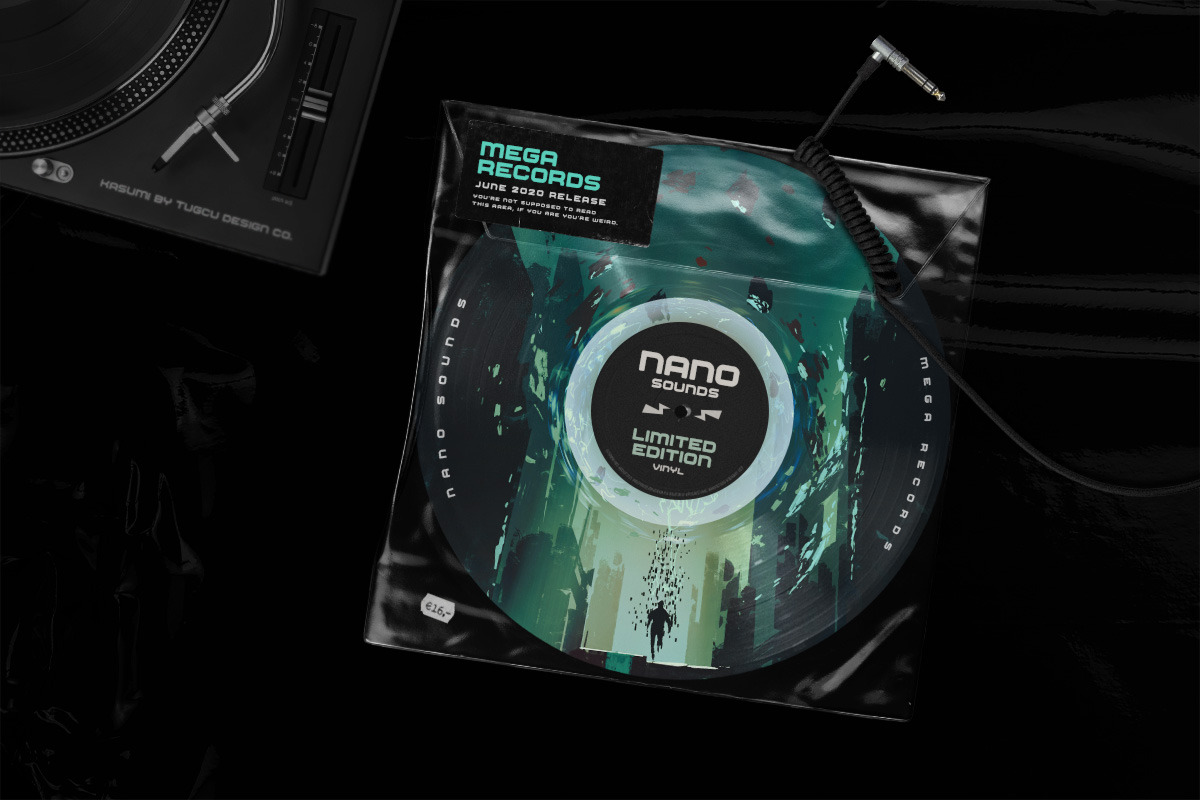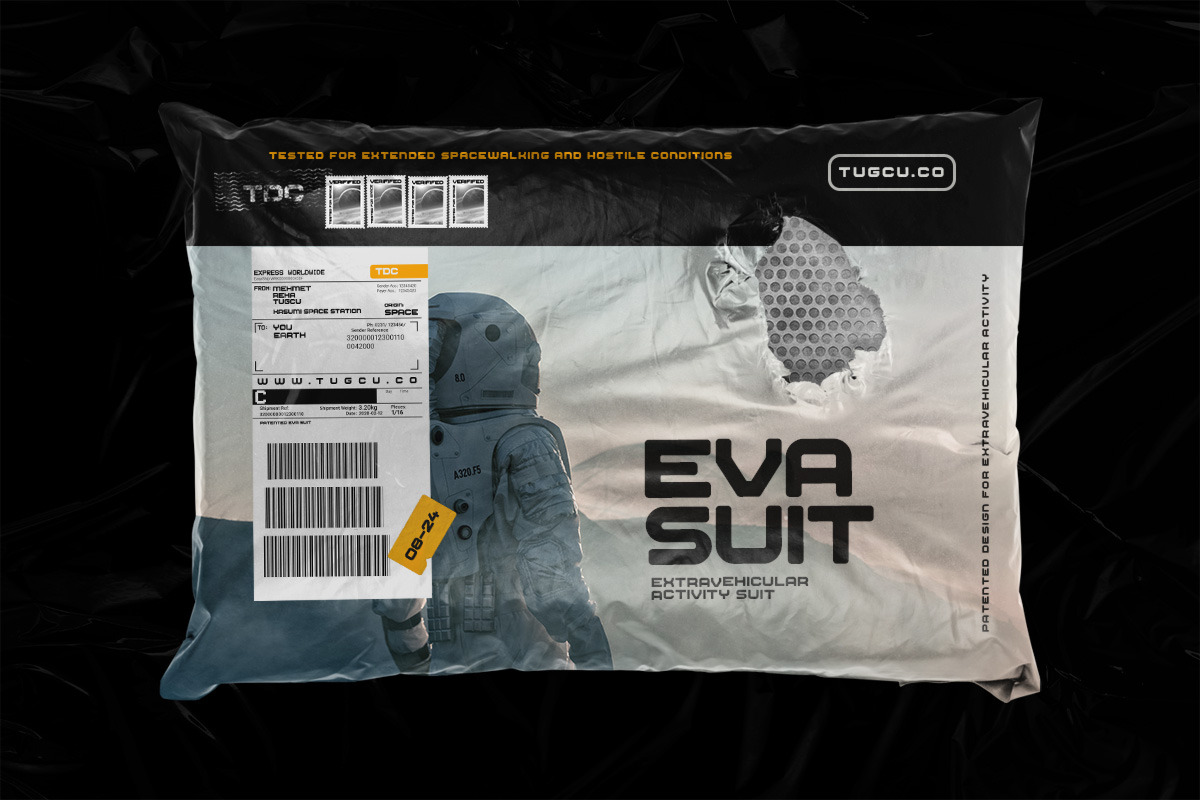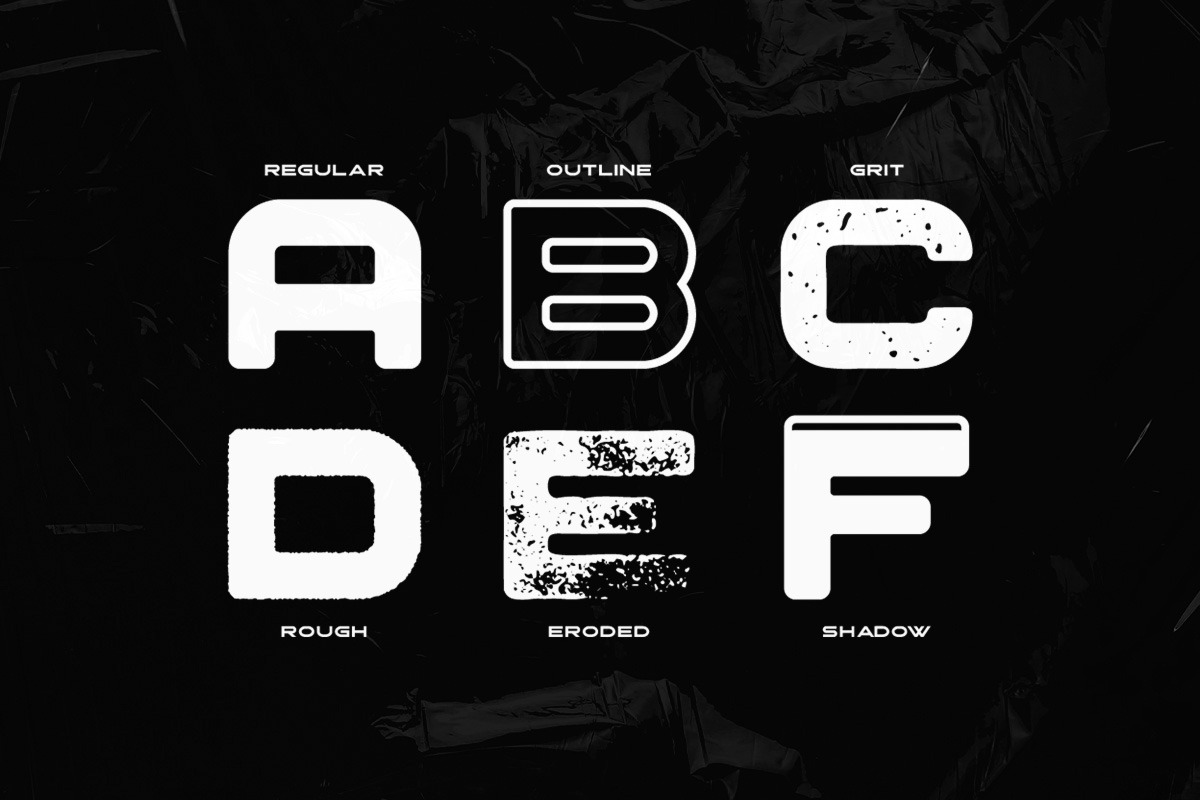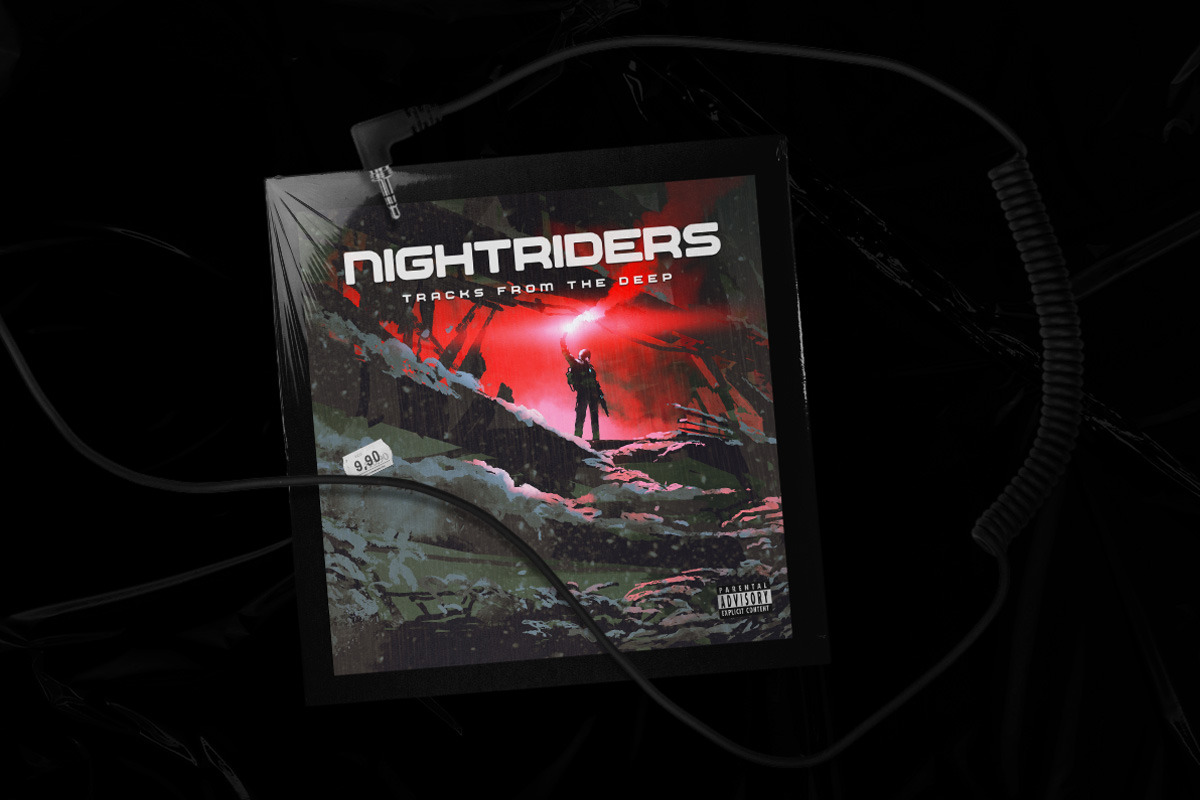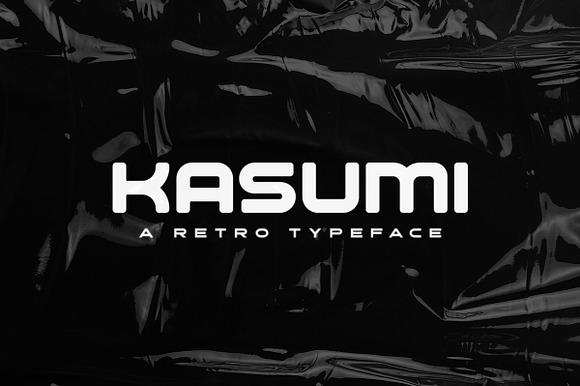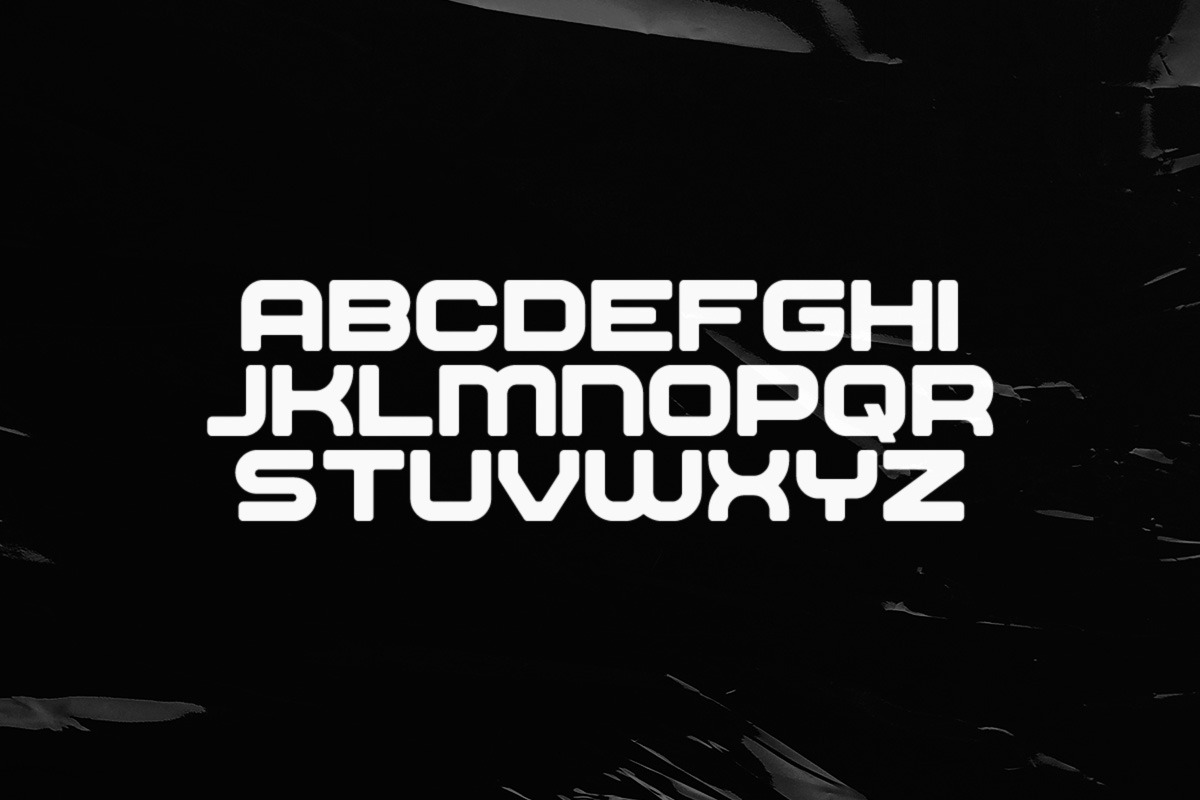
Kasumi Typeface
Kasumi is a retrofuturistic font family with a sleek old-school look. It includes 6 unique styles and has uppercase multilingual letters, numbers and punctuation.
- It includes 6 unique styles and has uppercase multilingual letters, numbers and punctuation.
- Kasumi Regular
- Kasumi Eroded
- Kasumi Grit
- Kasumi Outline
- Kasumi Rough
- Kasumi Shadow
Why Kasumi Typeface is worth a look
Kasumi Typeface by Tugcu Design Co. fits naturally into Branding, posters, packaging, typography.